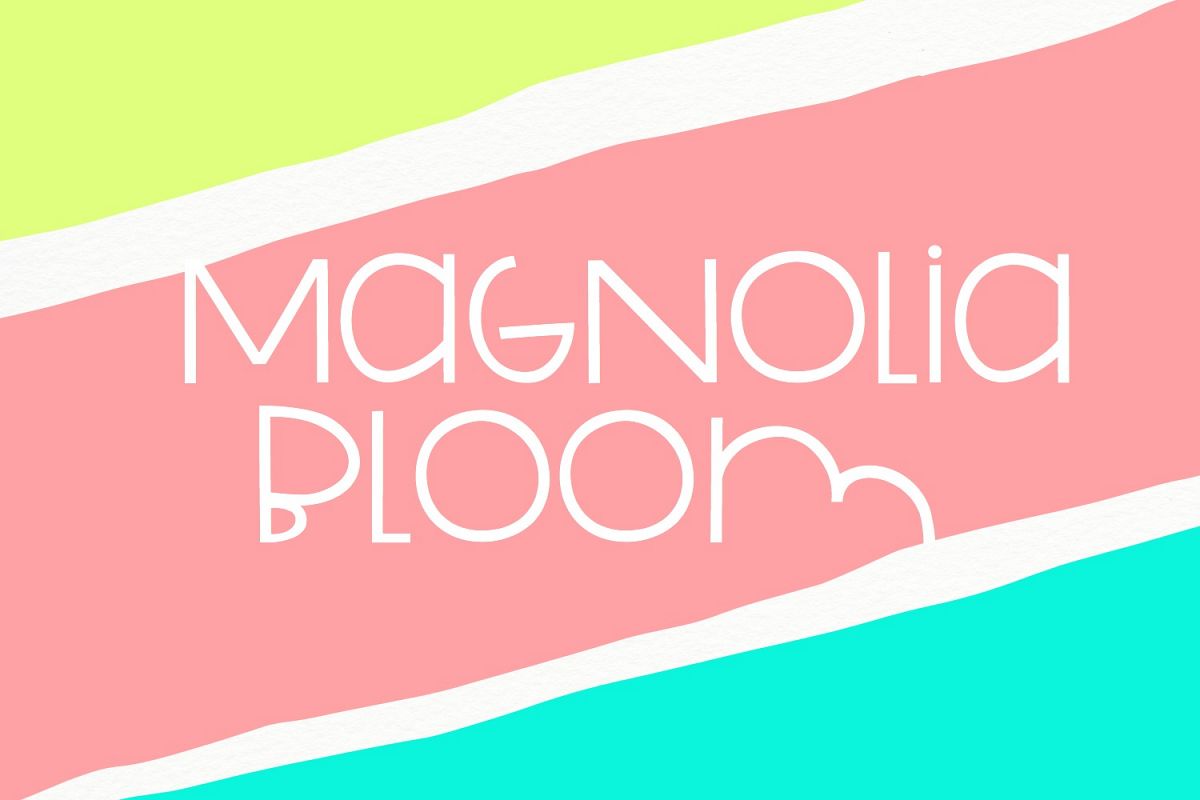
Magnolia Bloom: Handwritten Font
Magnolia Bloom is a mixed-case handwritten font with a youthful, playful vibe.  It includes Latin Extensions to support most European languages.